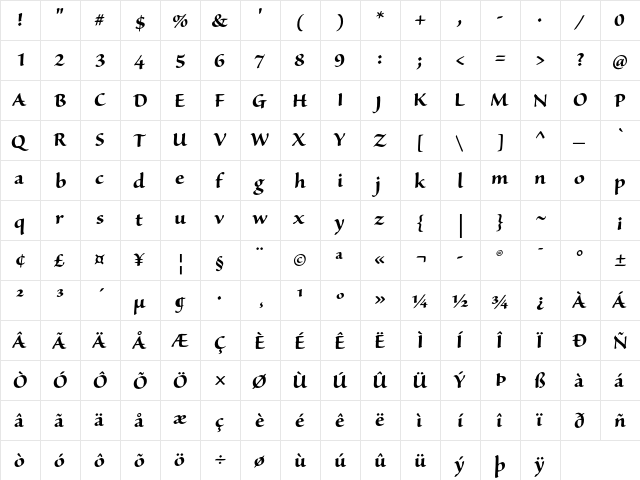
Sanvito Pro Bold Subhead
| Designer | Robert Slimbach |
Design Context for Sanvito Pro Typeface
Sanvito Pro is a composed and adaptable typeface that performs quietly and consistently across a wide range of design contexts. Its bold stroke weight gives it real presence on the page.